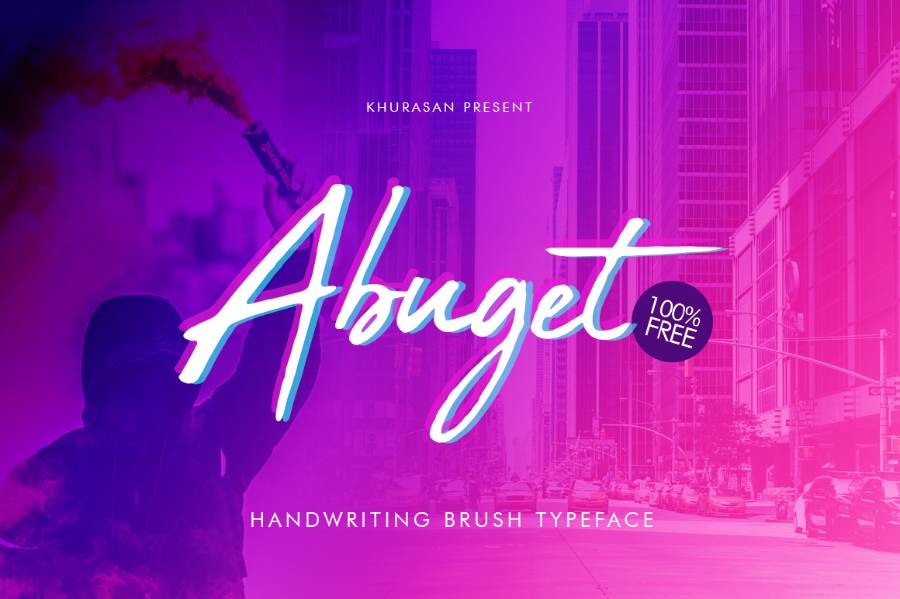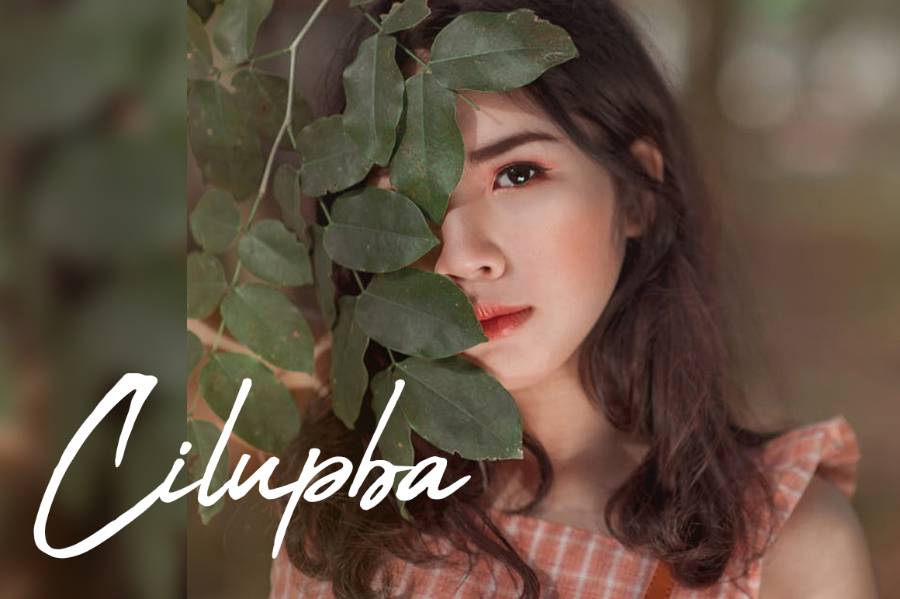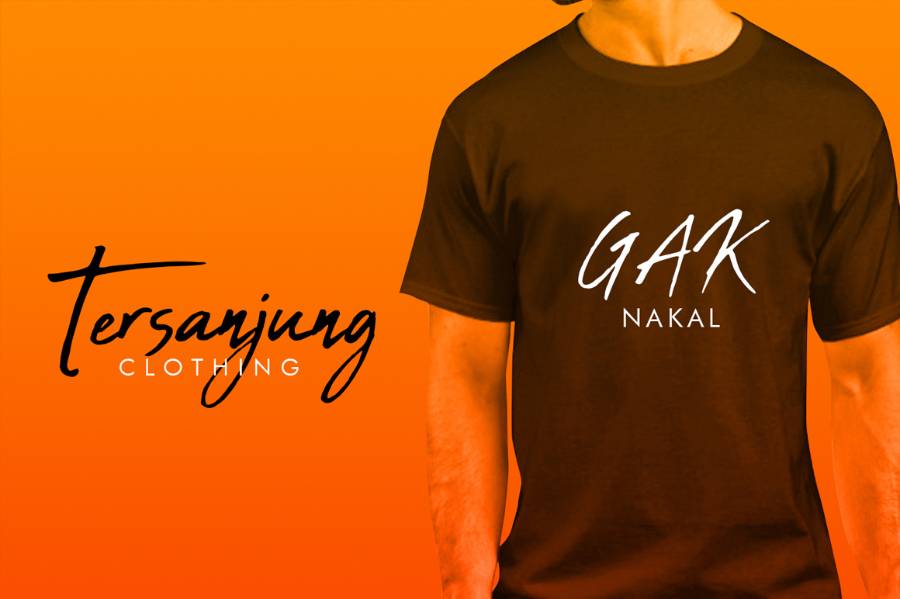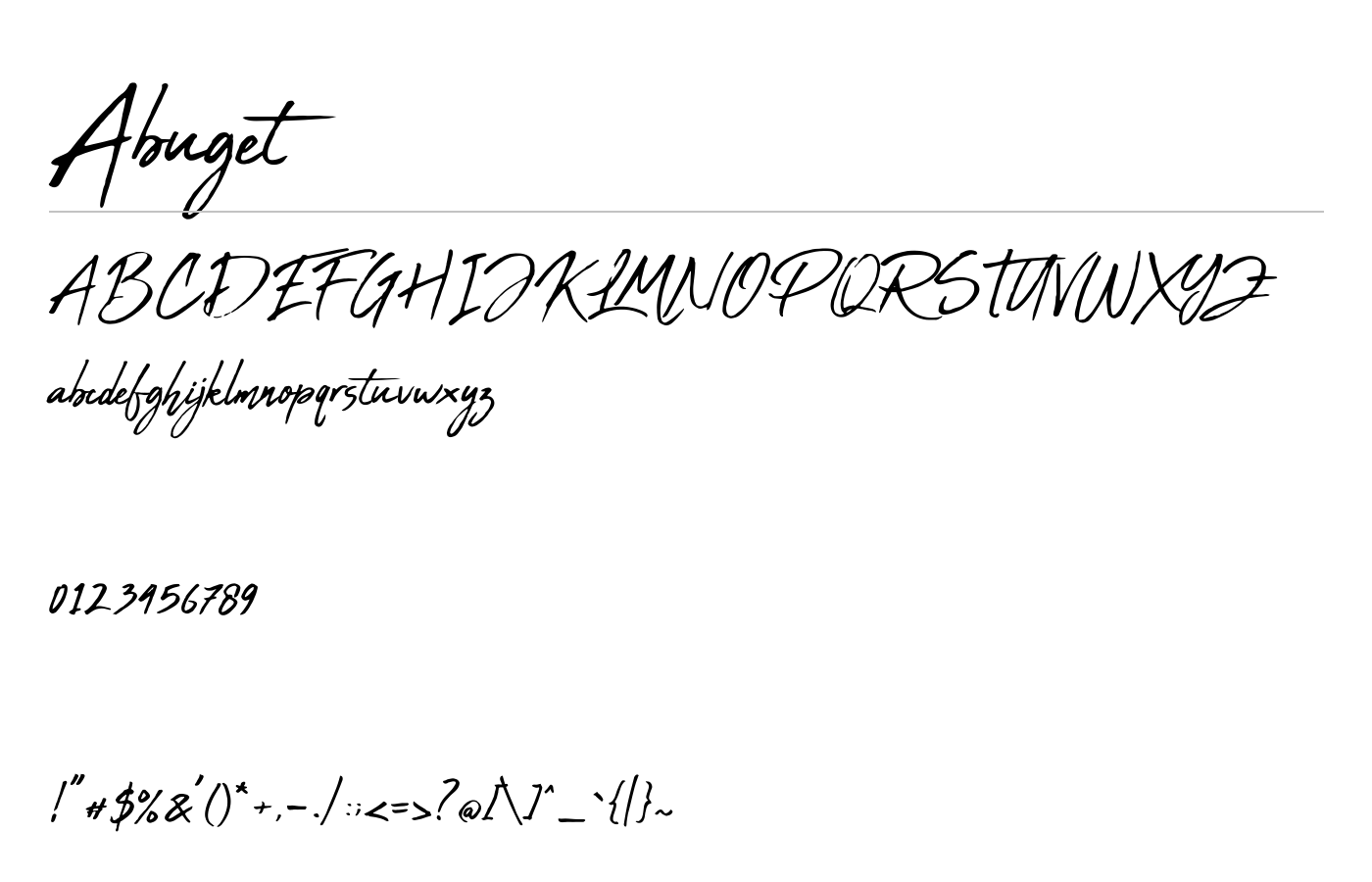
Abuget Script Demo is a lively and elegant script font with a natural, hand-drawn feel. Its slender, flowing strokes and slightly irregular letterforms give it a personal and artistic touch, making it ideal for creative branding, invitations, and stylish headlines. This font works best where a casual yet refined handwritten look is desired, adding warmth and character to any design.
Abuget Script Demo Font
About Abuget Script Demo Font
| Font family | Abuget Script Demo Font |